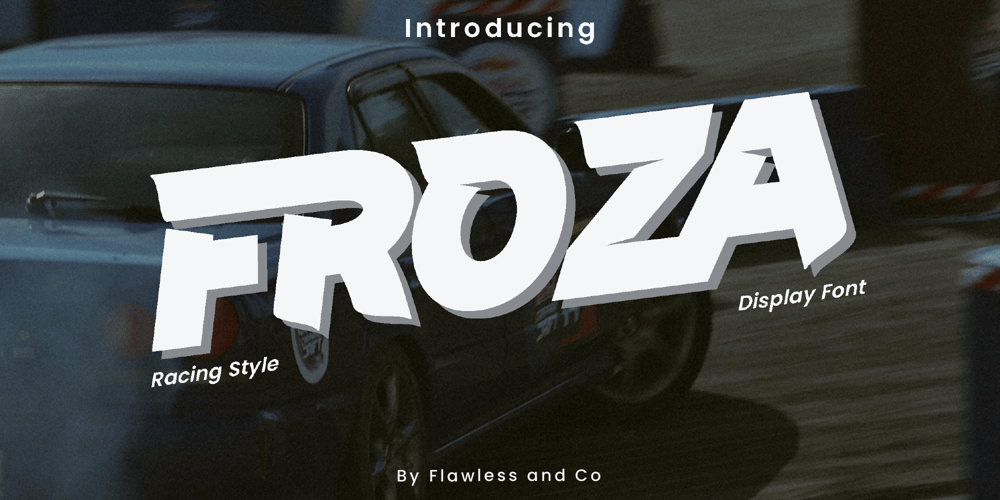
Froza Font Family was designed by Achmad Yani and published by Flawlessandco. Froza contains 1 styles and family package options. Introducing “Froza” – a dynamic and powerful display font that captures the essence of speed, intensity, and adrenaline in the world of racing. There’s some connected letters and some alternates that suitable for any graphic designs. This font support for some multilingual. Also contains uppercase A-Z and lowercase a-z, alternate character, numbers 0-9, and some punctuation.If you need help, just write me! Thanks so much for checking out my shop!